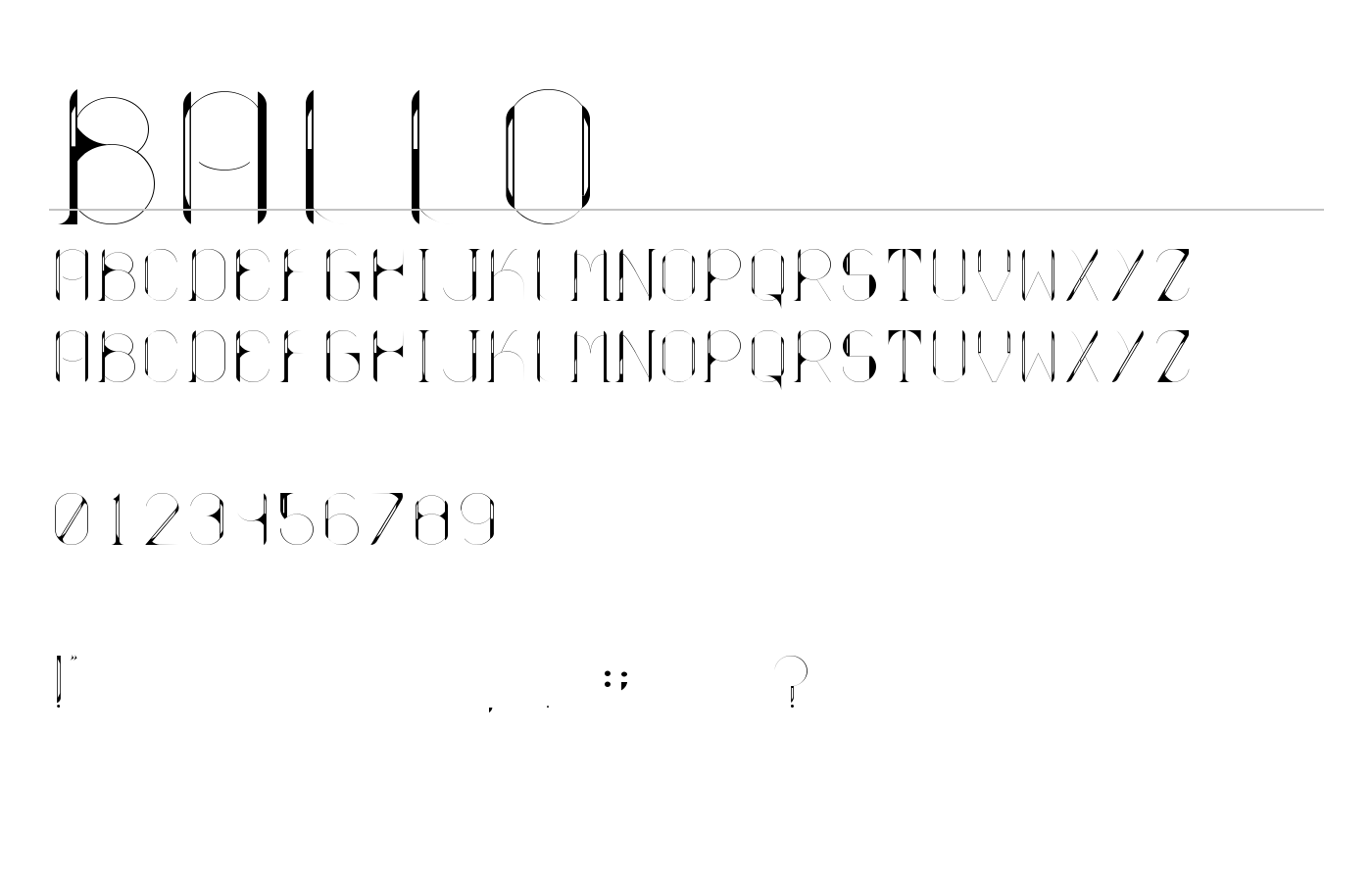
Ballo Font is a delicate and modern serif typeface characterized by its high contrast between thick and thin strokes and elegant, sharp serifs that give it a refined and artistic look. Its narrow width and stylish, almost calligraphic details make it ideal for luxury branding, fashion magazines, and sophisticated headlines where a unique and graceful statement is desired. This font works beautifully in upscale and creative contexts that seek to combine classic charm with contemporary elegance.
Ballo Font